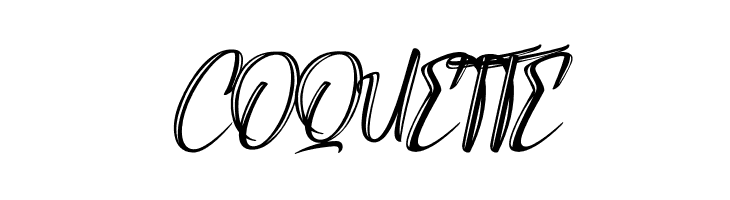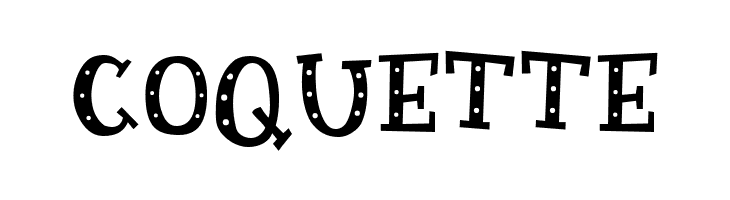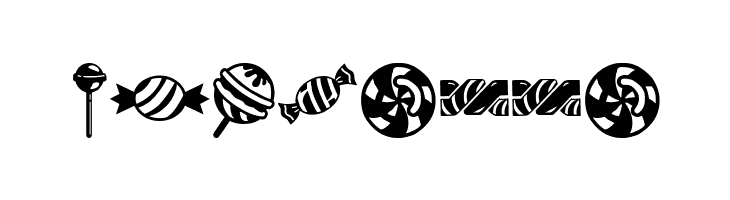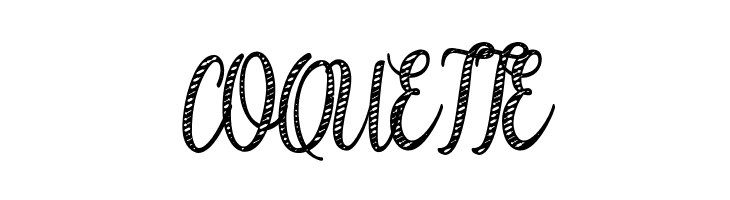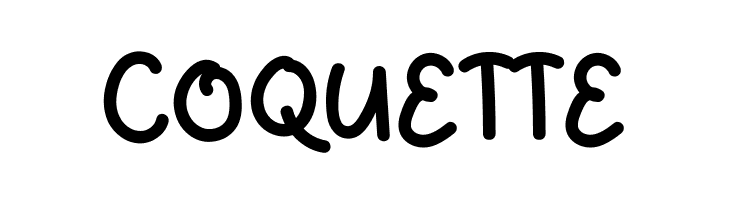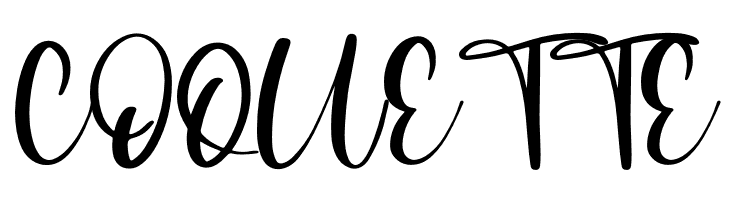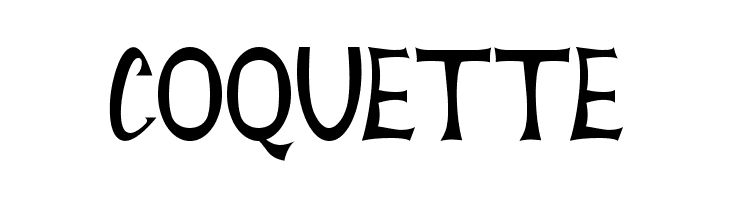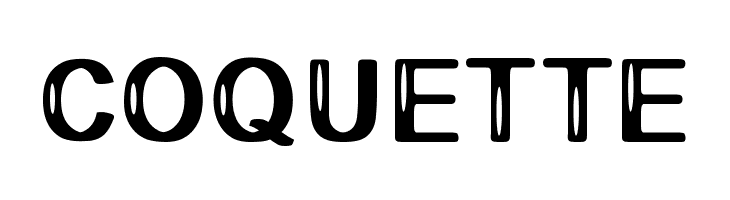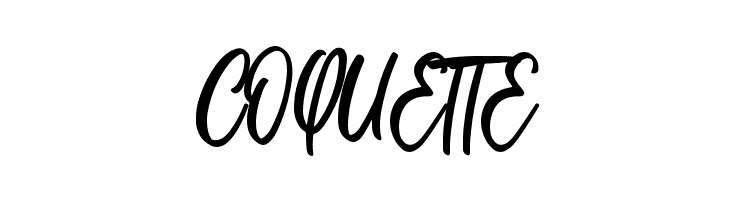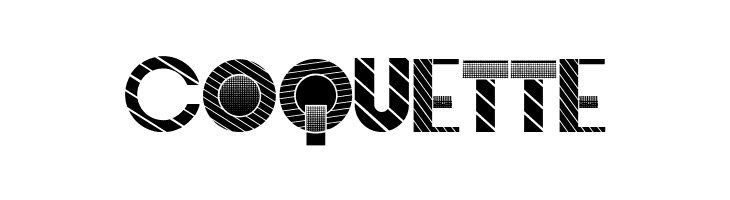
A playful, hand-drawn script font with flowing, interconnected letters.
A playful, candy cane-themed cursive font with a decorative striped pattern.
A lively, handwritten script font with a playful and dynamic style.
A playful, rounded font with a hand-drawn, whimsical style.
A bold, playful script font with a handwritten style.
A playful, bold typeface with rounded and angular elements, featuring creative negative space.
A bold, rounded font with a playful, retro vibe.
A playful, bold font with a bubble-like, halftone design.
Fun, bold candy-themed icon set with diverse sweet illustrations.
A playful and whimsical font with dynamic, irregular letterforms.
A bold, cursive font with dynamic strokes and expressive style.
A lively, cursive script font with a handwritten feel.
A bold, cursive font with playful, interconnected letters and high contrast.
A bold, dynamic script font with interconnected letters and a playful style.
A bold, cursive font with a playful and dynamic style.
A playful, decorative font with bold, geometric shapes and intricate patterns.
A playful, handwritten font with smooth, rounded strokes.
A bold, textured script font with a dynamic, brush-like appearance.
A bold, brush-style script font with a dynamic, hand-drawn appearance.
A playful, handwritten script font with smooth, flowing lines.
A whimsical and decorative font with bold, curvaceous characters and intricate swirls.
A playful and energetic script font with bold, flowing strokes.
A playful, cursive script font with flowing, connected letterforms.
A playful handwritten font with a casual and friendly style.
A playful, whimsical script font with flowing, interconnected letters and bold numerals.
A playful, polka-dotted font with bold, rounded characters.
A playful and bold decorative font with quirky letterforms.
A playful, whimsical handwritten font with flowing strokes and a casual vibe.
A bold, playful font with a unique striped pattern and rounded characters.